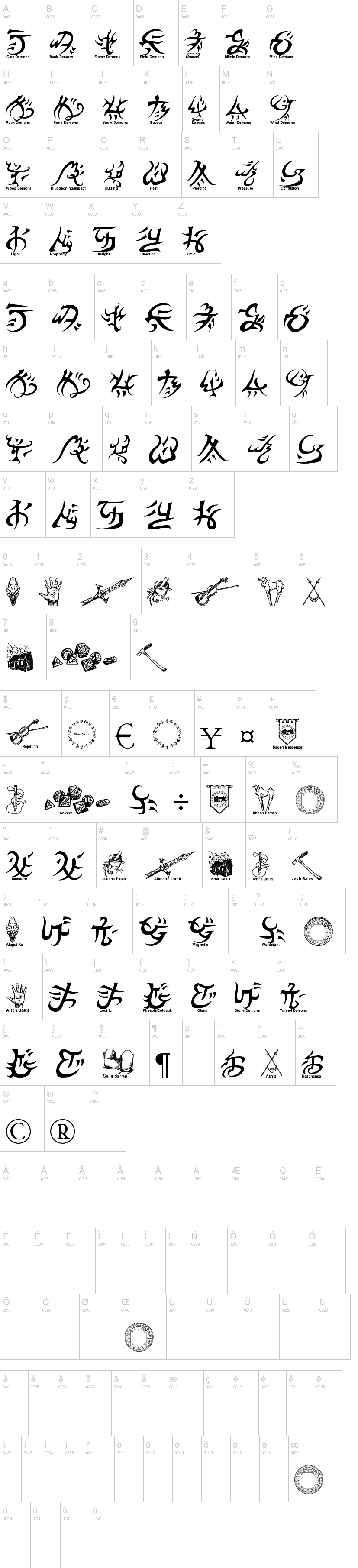
Warded Man hollow.ttfNote of the authorWarded Man is a true type font based on the runes in Peter V. Brett's 'Demon Cycle' The lower case letters consist of the wards, while the upper case letters have the wards along with their name or description. In addition, the upper keys "1" through "=" have the avatars of the main POV characters and the keys "!" through "+" have avatars with their respective names.